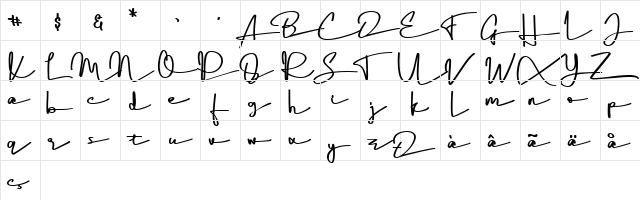
The Garisha DEMO Regular
Design Context for The Garisha DEMO Typeface
The Garisha DEMO is a composed and adaptable typeface that performs quietly and consistently across a wide range of design contexts.